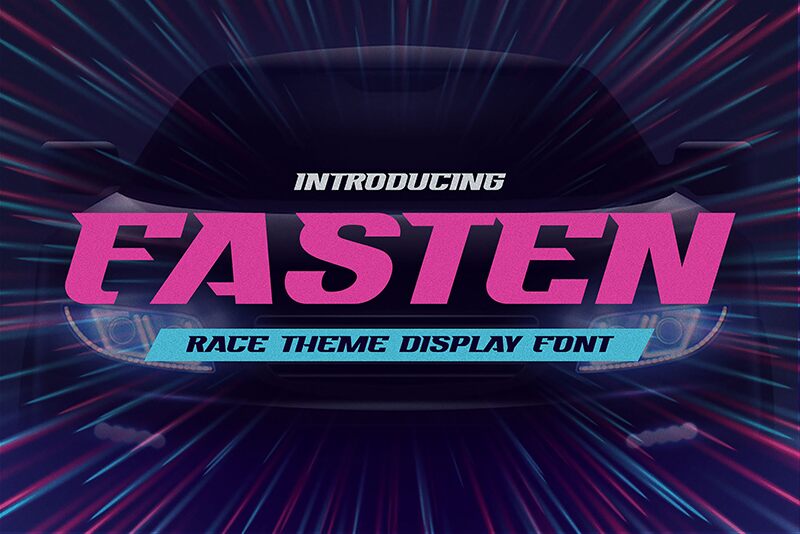
Fasten, designed by Gassstype, is a bold and expansive display font that captures the essence of the future with every character. Its thick, assertive lines and wide stance immediately command attention, making it an ideal choice for any project that demands impact. The futuristic flair of Fasten is unmistakable; its sleek contours and sharp angles evoke a sense of high-speed motion and advanced technology.
The aesthetic appeal of this typeface lies in its clean geometry combined with just the right amount of edginess. While it's undoubtedly bold, there's also an underlying elegance to Fasten that adds sophistication to its overall style. This makes it not only suitable for eye-catching headlines but also for branding projects looking to convey innovation and forward-thinking.
Whether you're crafting a logo for a tech startup, designing promotional material for a sci-fi movie, or setting up dynamic web content that stands out from the crowd, Fasten offers versatility in its usage while consistently delivering high visual impact. Its futuristic vibe fits seamlessly into contemporary designs yet has enough character to become timeless within various creative contexts.